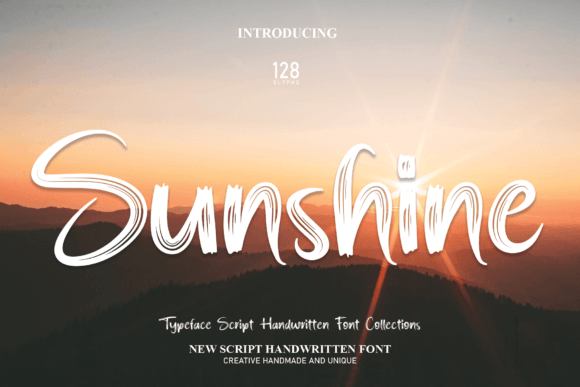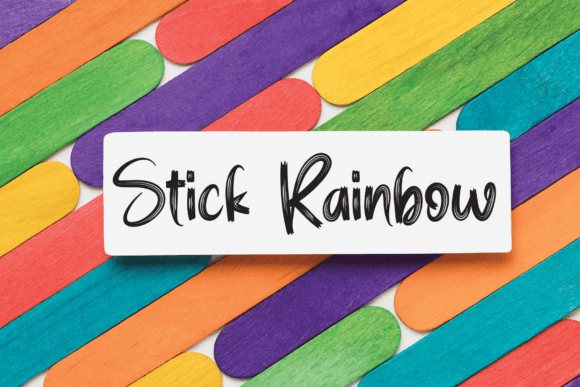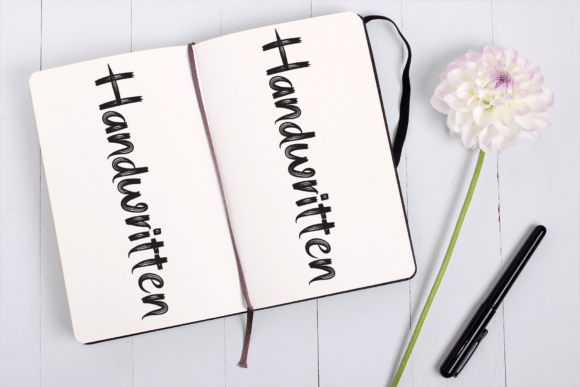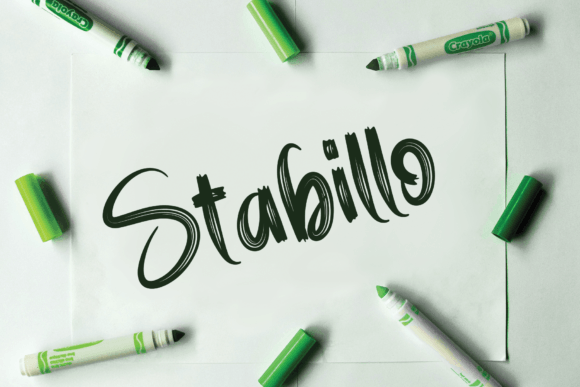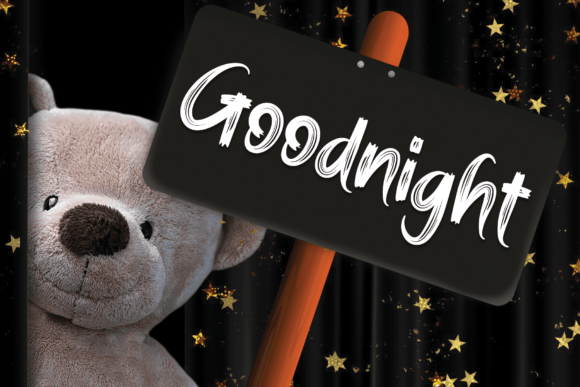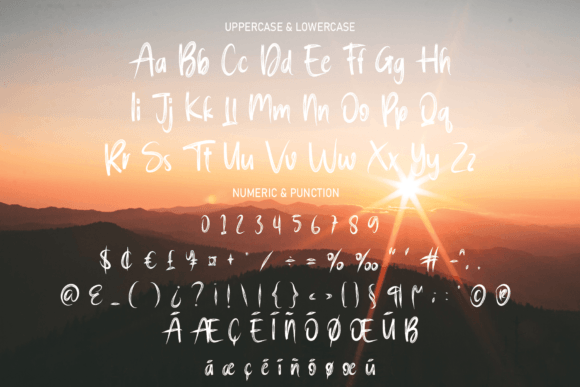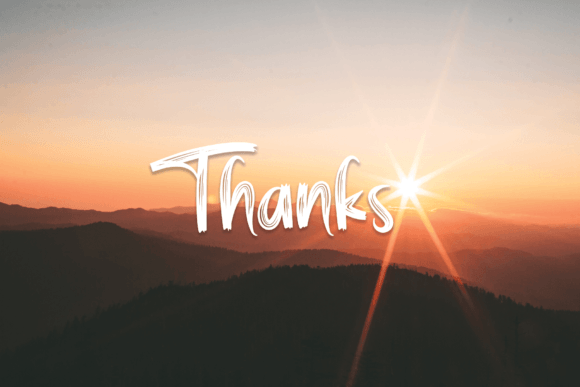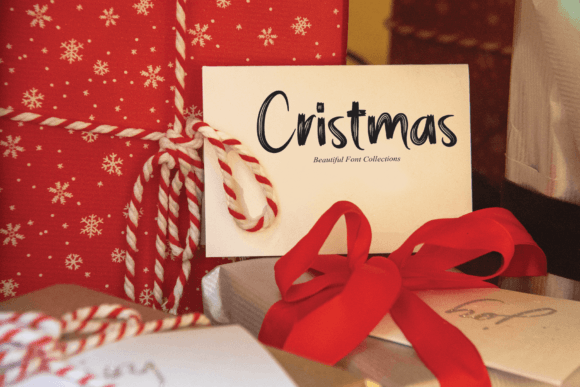
Sunshine Font
About Sunshine Font
“Sunshine Font: Crafting an Extraordinary Handwritten Experience
Meet Sunshine, a beautifully crafted handwritten font designed to provide you with an extraordinary typographic experience. This versatile font is tailor-made for a wide range of applications, making it perfect for wall displays, wedding invitations, social media posts, logos, advertisements, product packaging, labels, photography, watermarks, invitations, stationery, and any project that craves the distinctive touch of a handwritten style.
Beyond being a font, Sunshine embodies artistic excellence. Each character is meticulously shaped to exude beauty and warmth, creating a handwritten style that goes beyond the ordinary. Whether your project is digital or tangible, Sunshine is poised to elevate your designs into visually striking masterpieces.
For wall displays and wedding invitations, Sunshine becomes a sophisticated choice, infusing a personalized and elegant touch. Its distinct handwritten form brings a unique character to special occasions, creating an ambiance of warmth and celebration. Every word written in Sunshine becomes an artistic expression, enhancing the visual allure of your displays and invitations.
In the realm of social media, Sunshine enhances your posts with its distinctive touch. Whether you’re sharing moments or promoting products, the font’s elegant and unique style captures attention, adding a layer of sophistication to your online presence. Sunshine becomes an indispensable tool for crafting visually appealing and memorable content.
Logos and advertisements benefit from the unique charm of Sunshine. Its handwritten elegance imparts authenticity and a sense of craftsmanship, making your brand stand out amidst visual clutter. Sunshine serves as a visual signature, leaving an enduring impression on your audience.
Product packaging, labels, and designs gain a special allure with Sunshine. The font’s extraordinary handwritten style enhances overall aesthetics, transforming mundane labels into works of art. It’s a versatile choice that adds a touch of grace to your product presentation.
Whether for invitations, stationery, or photography watermarks, Sunshine is a font that brings a handwritten touch to every project. Its adaptability and unique charm make it an ideal choice for any creative endeavor that demands a blend of elegance and individuality.
In conclusion, Sunshine is more than just a font; it’s a finely crafted tool that propels your creative projects to a higher echelon. Let Sunshine be the catalyst that transforms your ideas into visually enchanting experiences. Whether you’re working on digital or tangible projects, Sunshine adds an extraordinary handwritten elegance to your creative repertoire.”